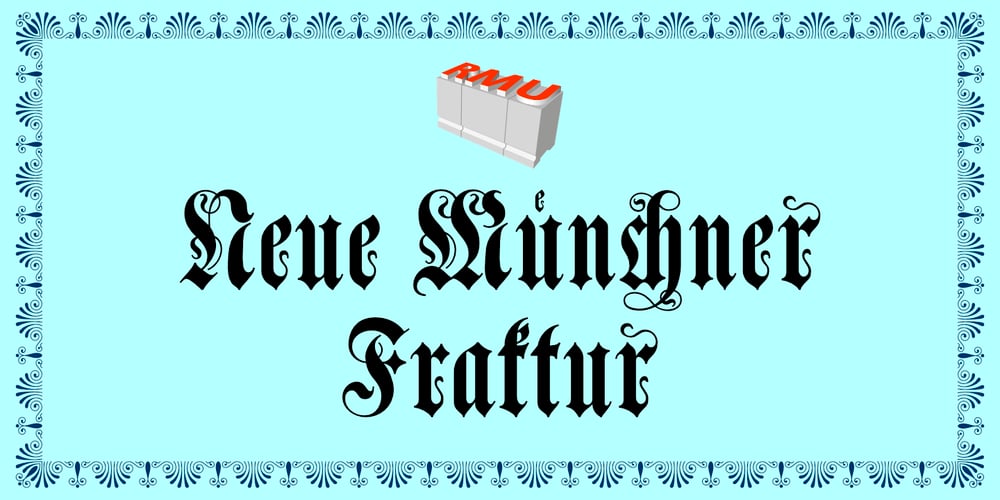
Neue Muenchner Fraktur
Neue Muenchner Fraktur font
Neue Muenchner Fraktur Font Family was designed by Ralph M. Unger and published by RMU. Neue Muenchner Fraktur contains 1 styles and family package options. This blackletter font displays best the voluptuous coziness of South German Baroque. You almost automatically visualize Alpine villages and Swiss chalets, or buxom girls serving beer in steins or herding their bell-ringing cattle.